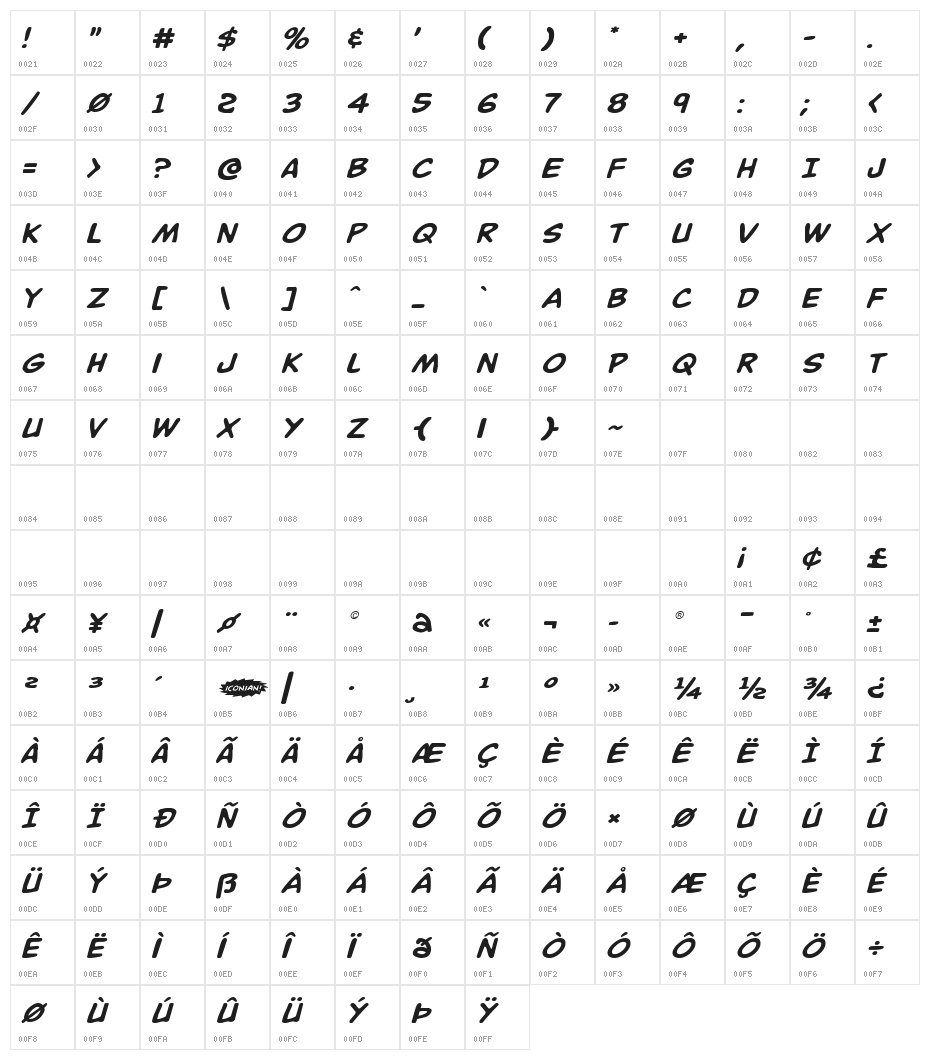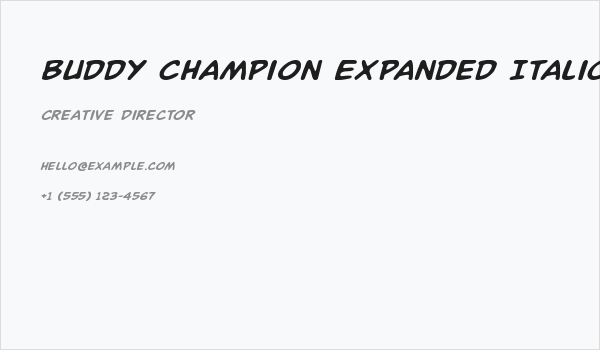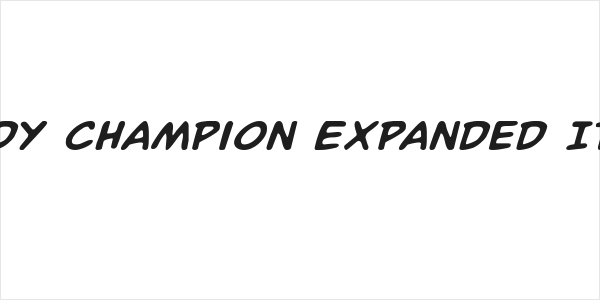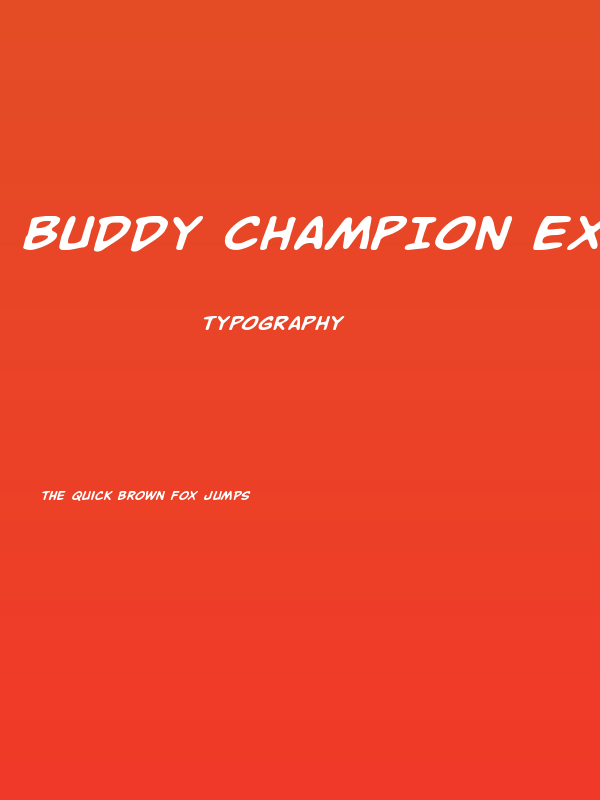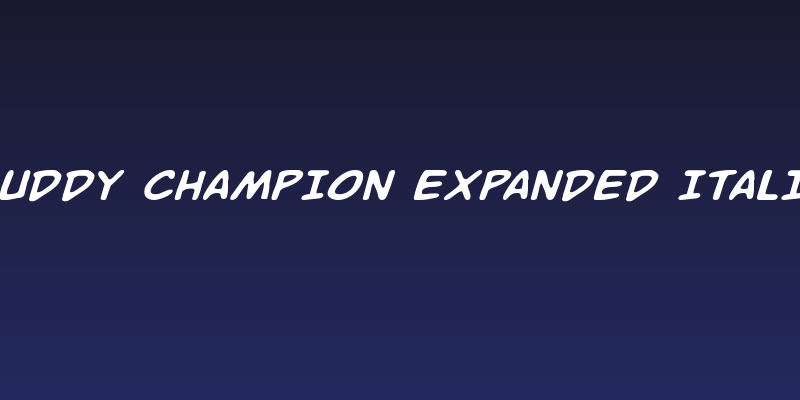
Buddy Champion Expanded Italic Font
Buddy Champion Expanded Italic Description
This font features a playful and dynamic style with a handwritten feel. The characters are bold and expanded, giving them a strong presence on the page. The italic slant adds a sense of motion and energy, making it suitable for projects that require a lively and informal touch. The strokes are consistent in thickness, providing a uniform appearance across all characters. The expanded width allows for excellent readability, even at smaller sizes. This font is ideal for designs that aim to capture attention with a friendly and approachable vibe.
| Overall Style | Playful and Dynamic |
| Proposed Projects | Perfect for children's book covers, playful branding, casual invitations, and eye-catching headlines. |